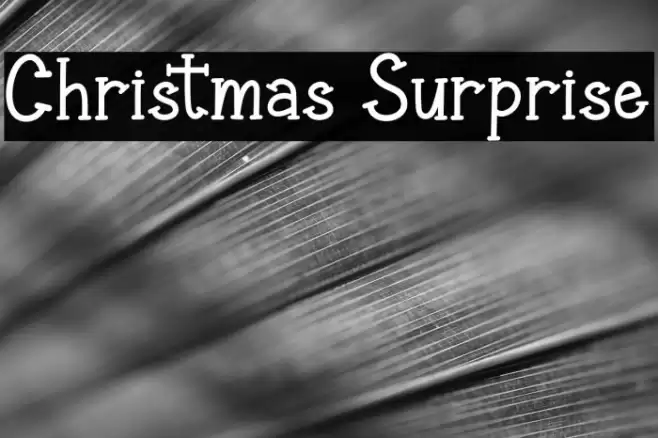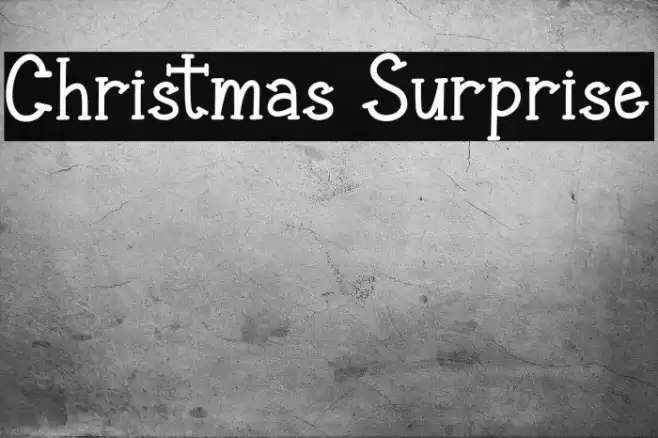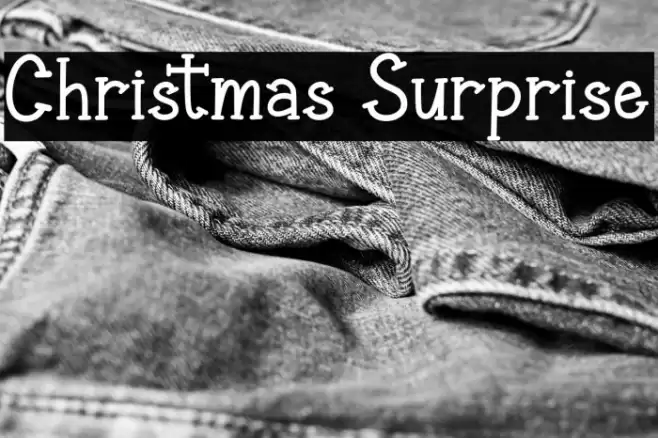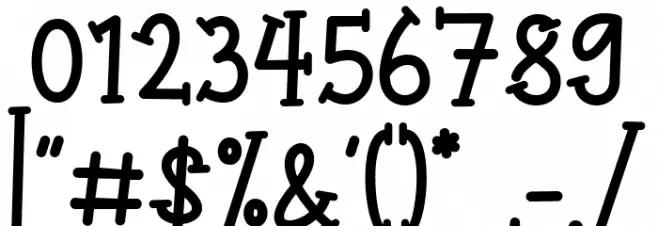
Christmas Surprise Font
Christmas Surprise Description
This font features a playful and whimsical design with a handwritten style. The characters have a casual, friendly appearance, making them ideal for informal and fun projects. The uppercase letters are slightly taller and more pronounced, while the lowercase letters maintain a consistent flow, enhancing readability. The numbers and special characters are crafted to match the overall playful aesthetic, with rounded edges and a slightly uneven baseline that adds to the charm. The font's unique style is perfect for capturing attention and conveying a sense of joy and creativity.
A playful, handwritten font with a whimsical and friendly style from Regular fonts.
- Proposed Projects: Ideal for children's books, greeting cards, party invitations, and playful branding.
- Overall Style: Playful
- Use Case: Headlines, Logos, Invitations